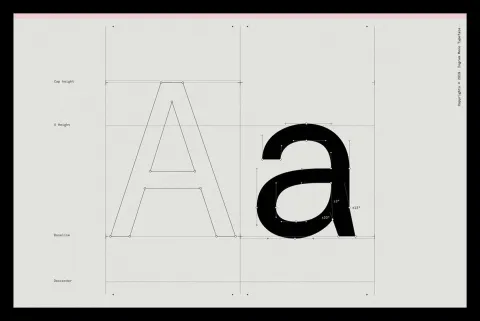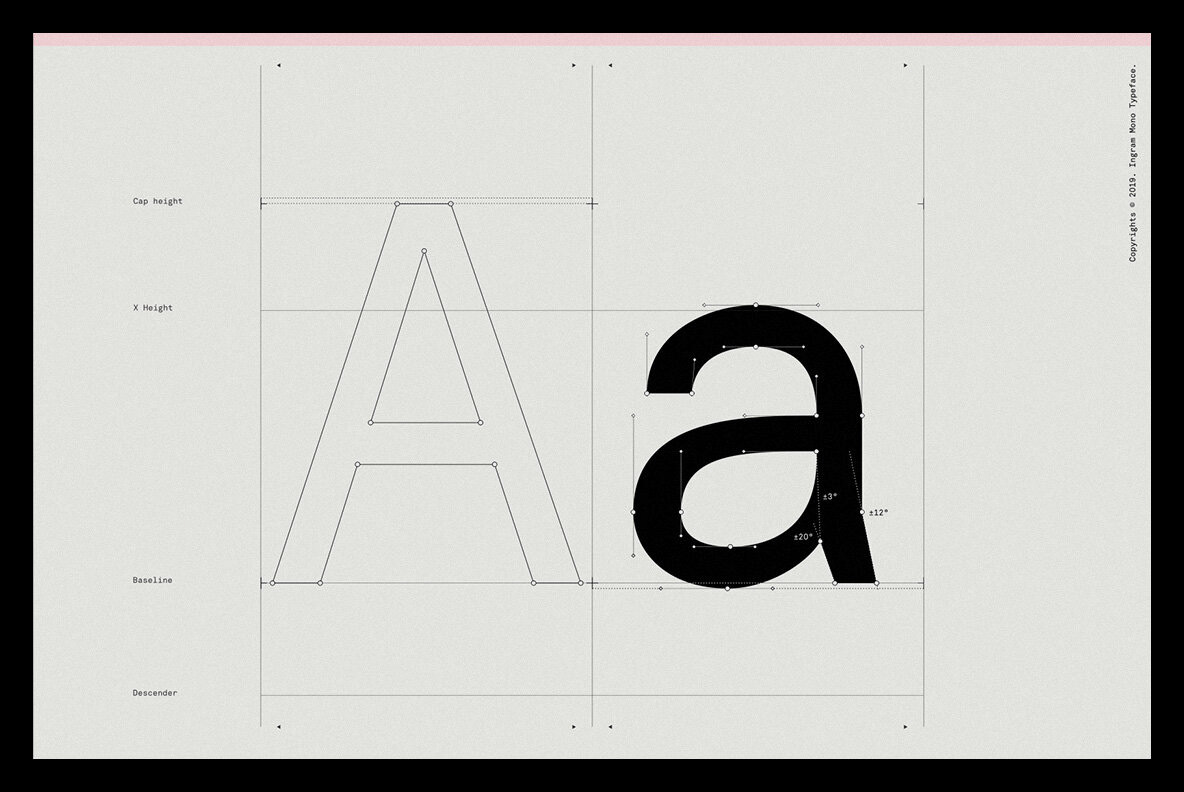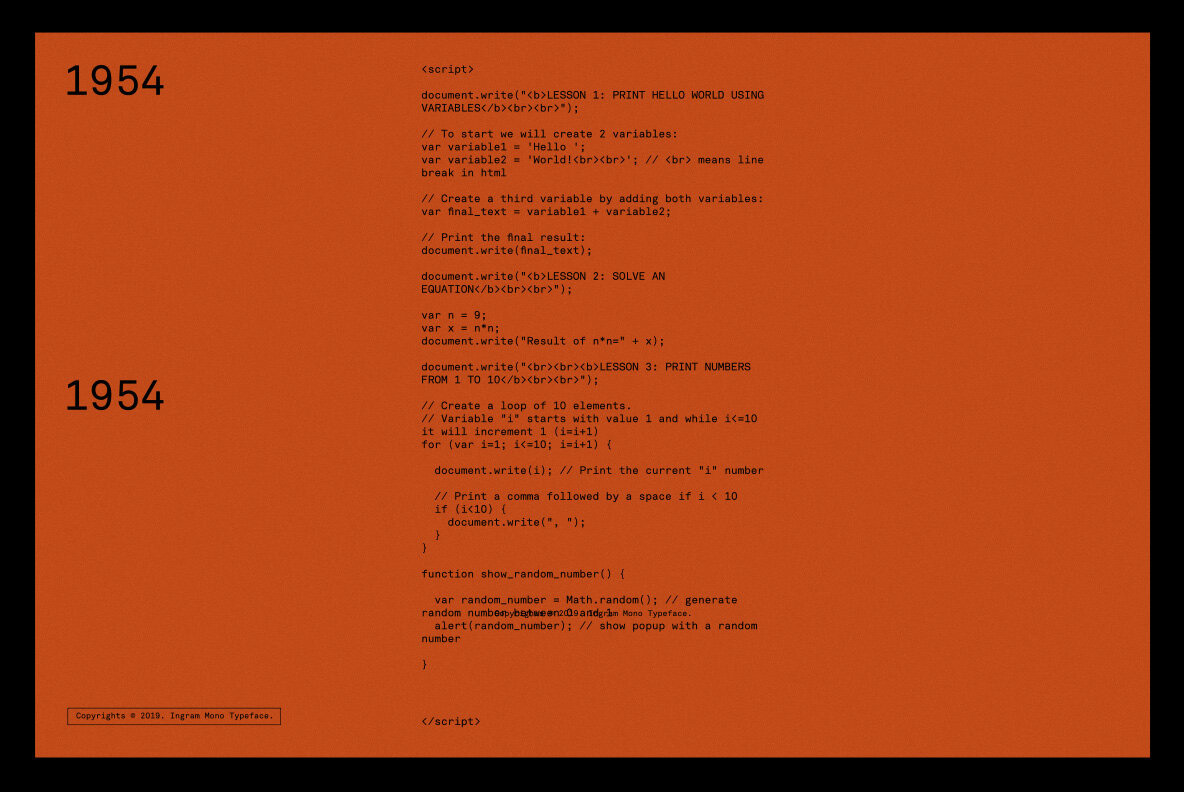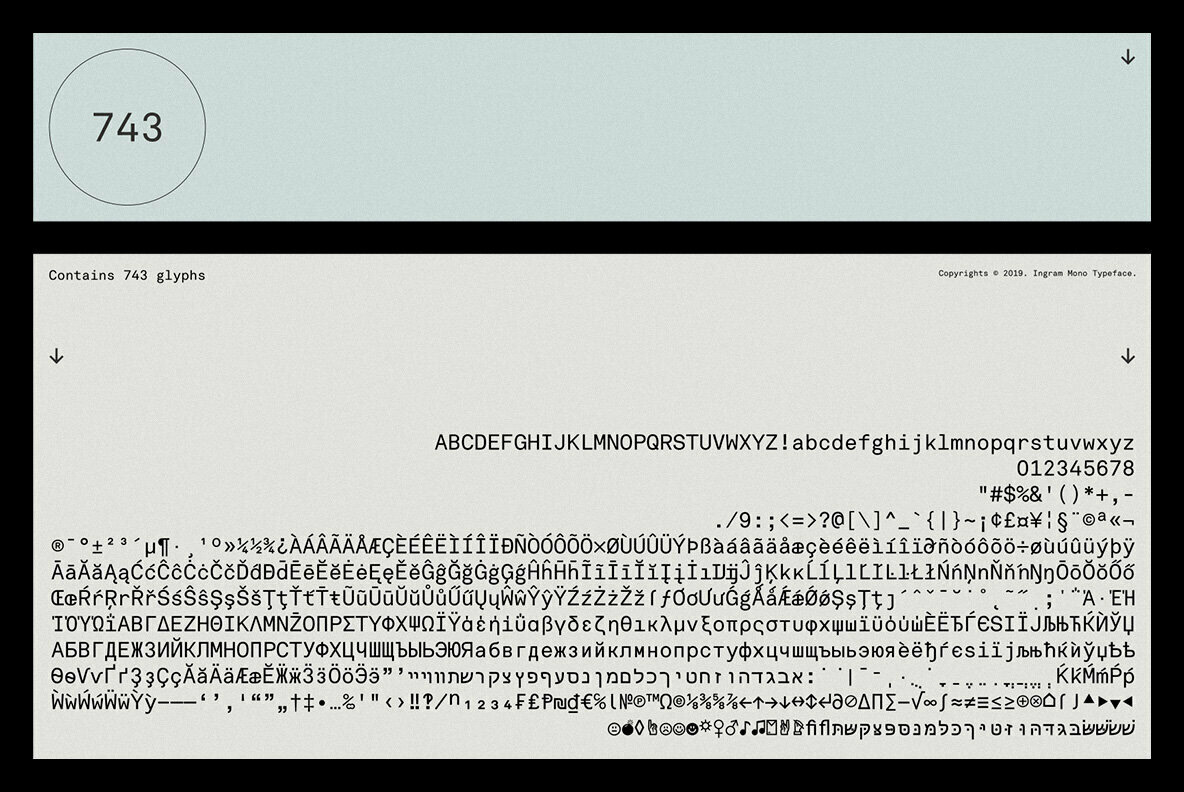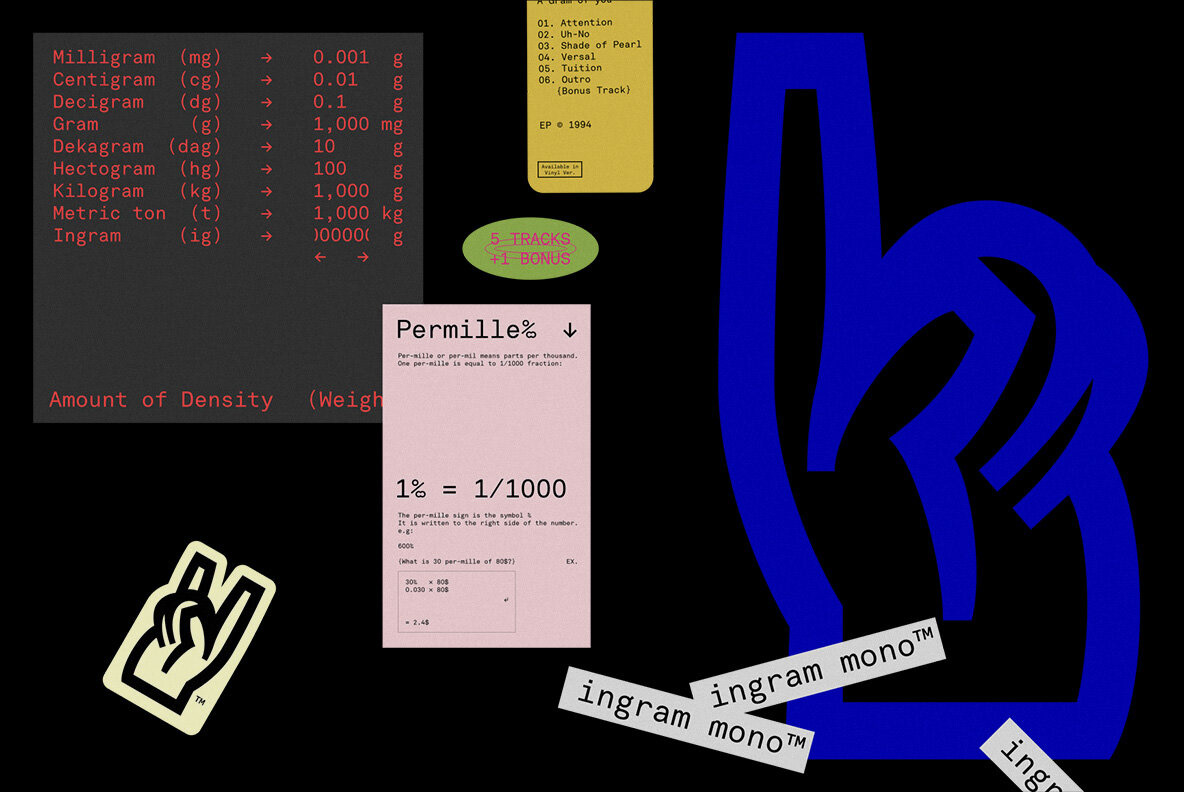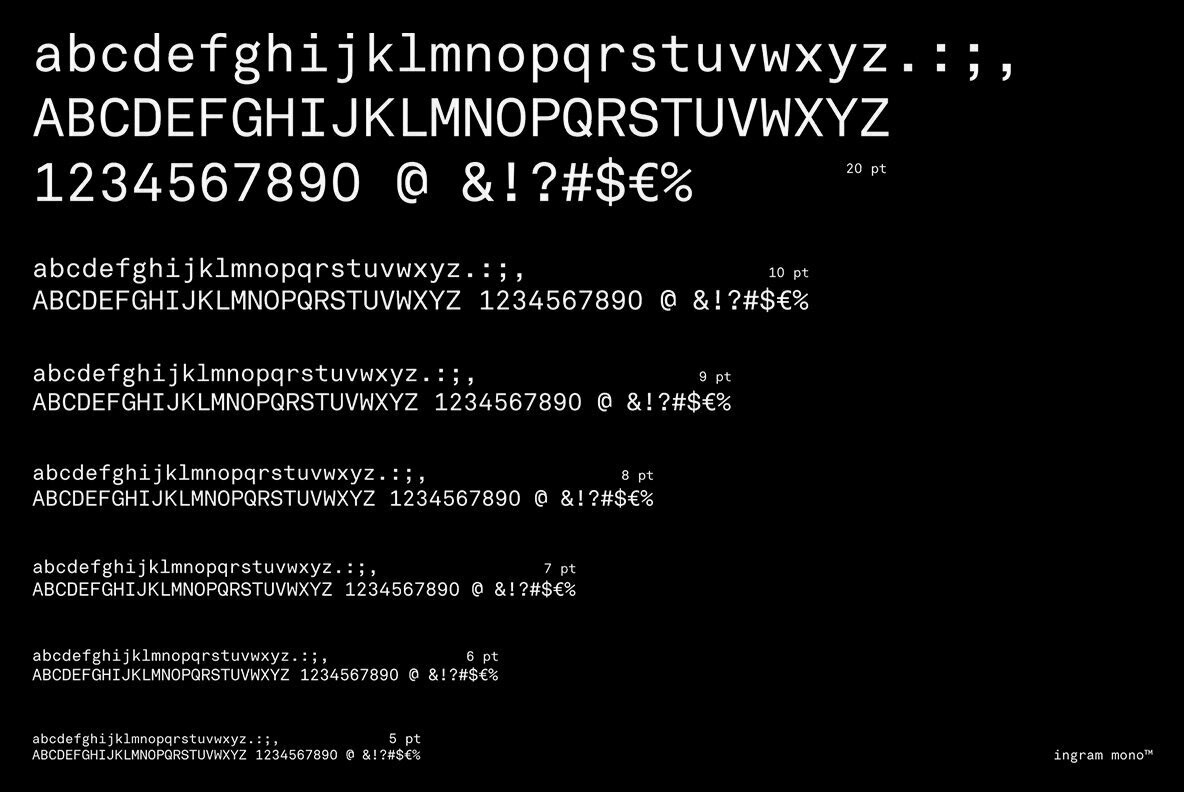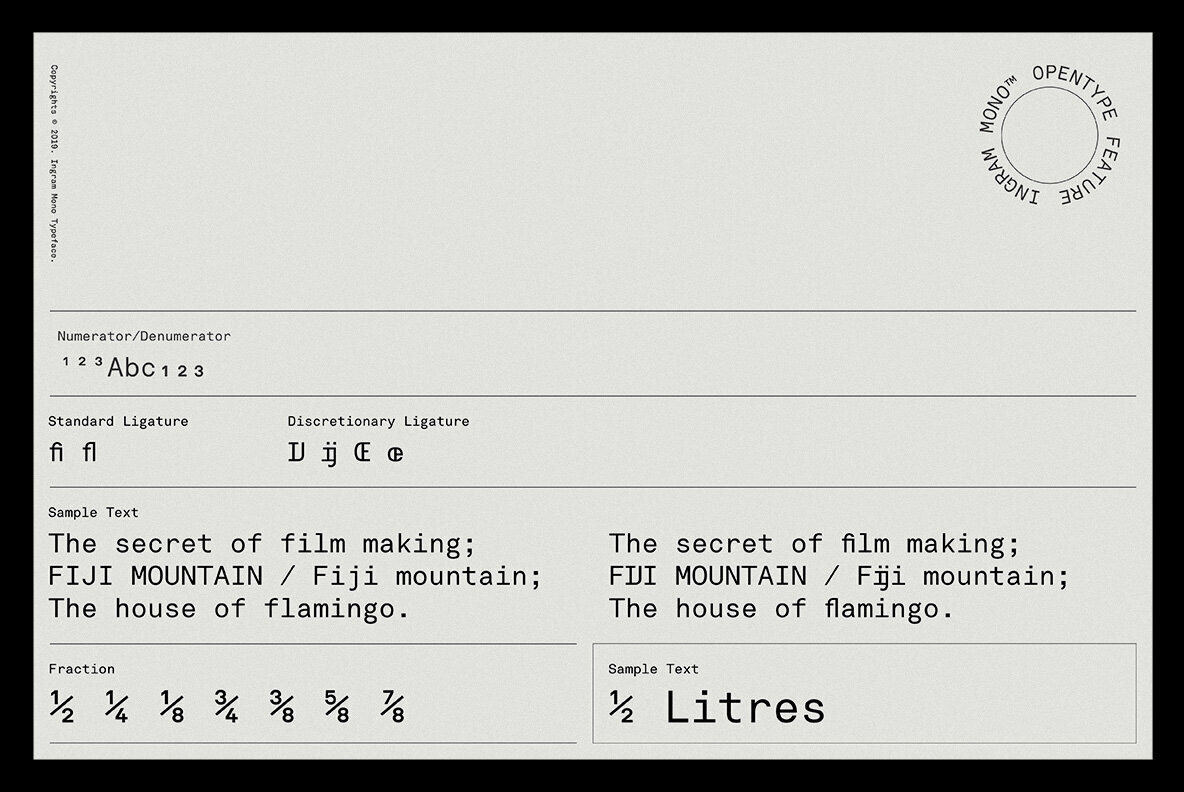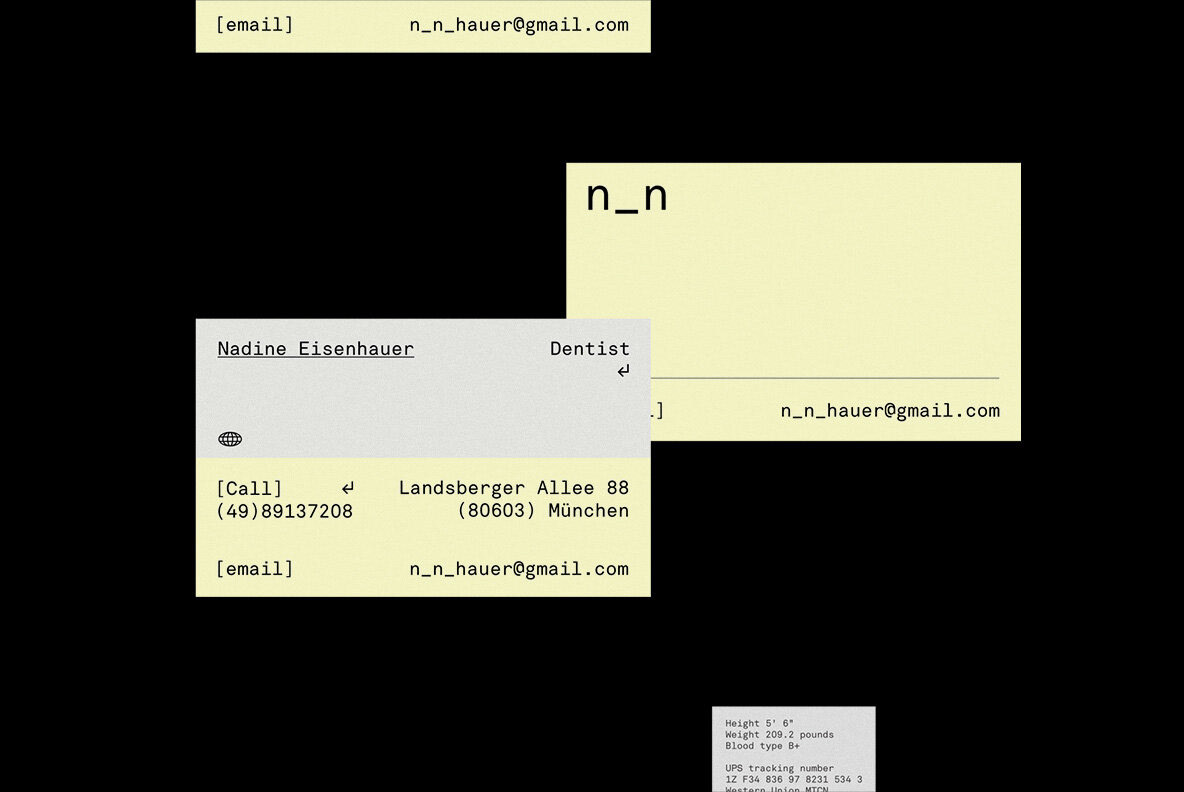
Chrisb Marquez shared a beautiful typography work, to be more precise, it’s about his new mono typeface called Ingram Mono, a sans serif font design published by Minor Praxis and Powered by YWFT - sometimes monospaced typefaces tend to be a bit too spaced out, most of them look a bit difficult to use on most project. Ingram seems to address this issue, making it a bit more versatile. What do you think?